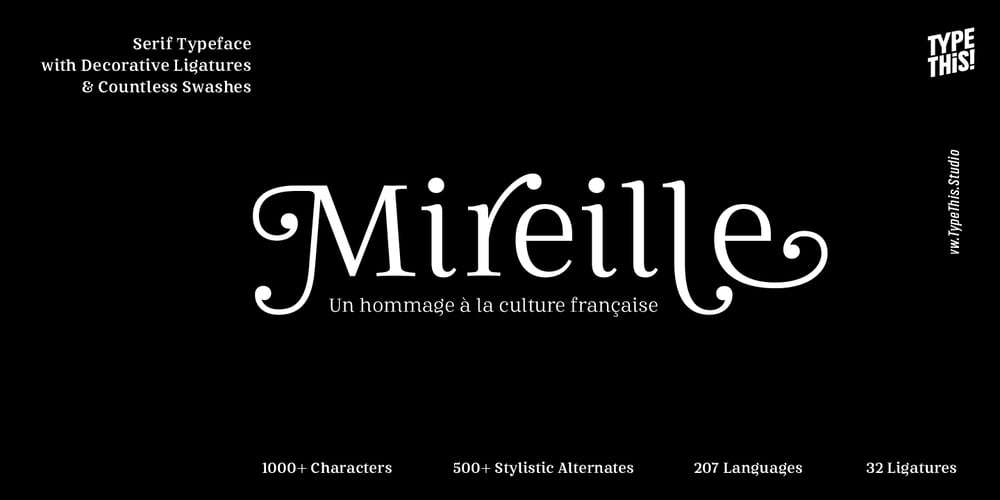
Mireille Font Family was designed by Anita Jürgeleit and published by TypeThis!Studio. Mireille contains 7 styles and family package options. Mireille is a typographic homage to french culture. Your journey through gourmet food, classical music, opera and wine tours over 100 romantic alternates and ligatures that allow you to add outstanding elegance to your typography.Take care: you might have a crush on this typeface – La vie, c’est beau!www.typethis.studio